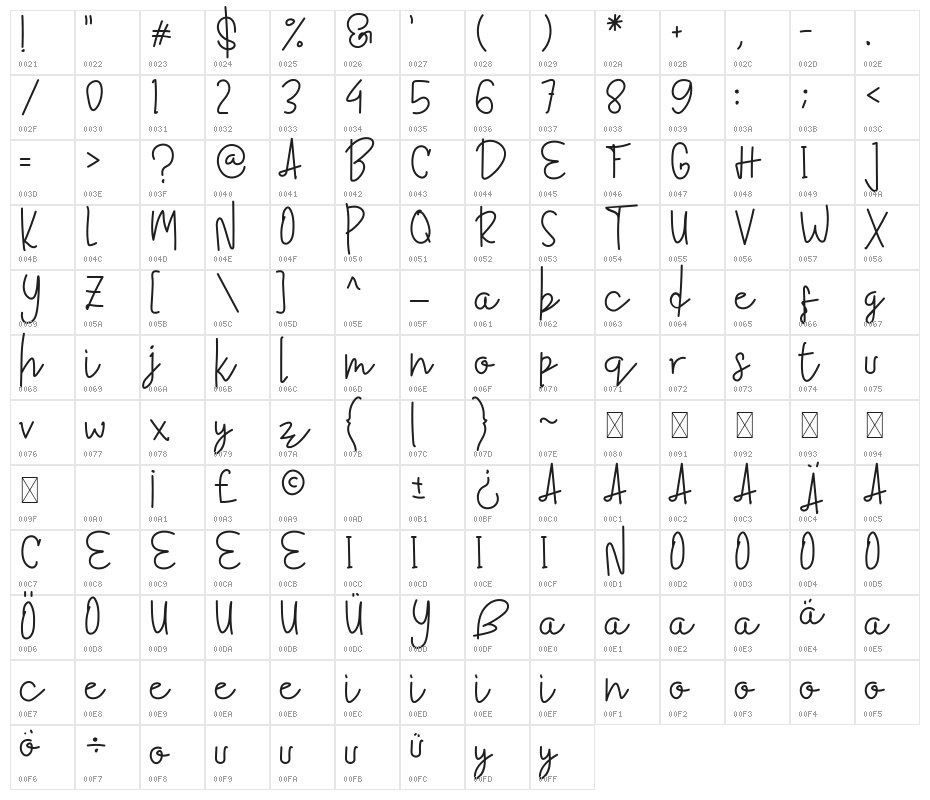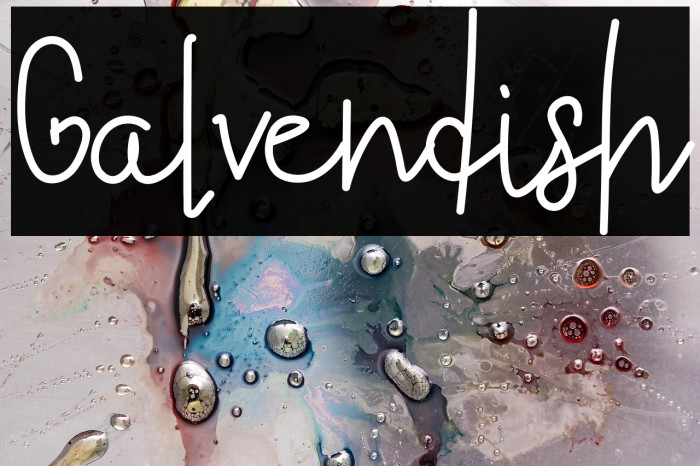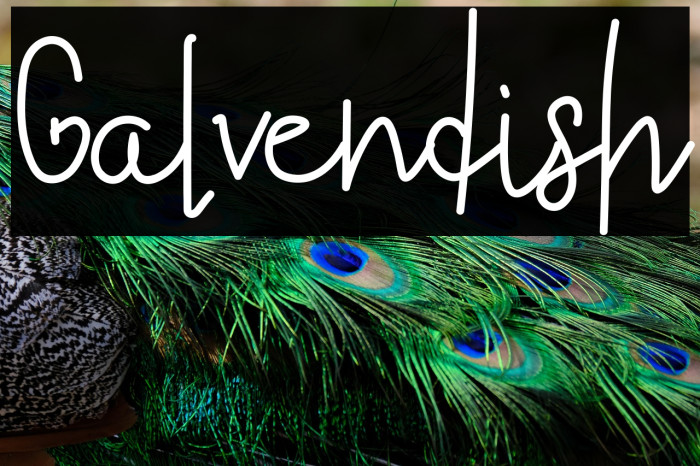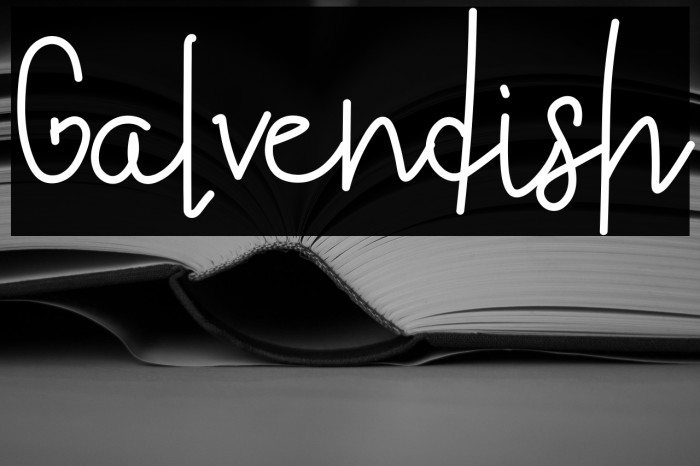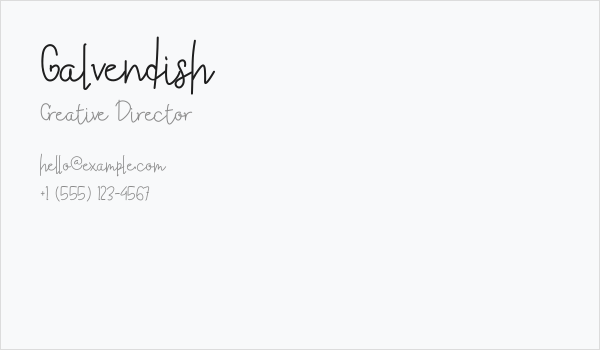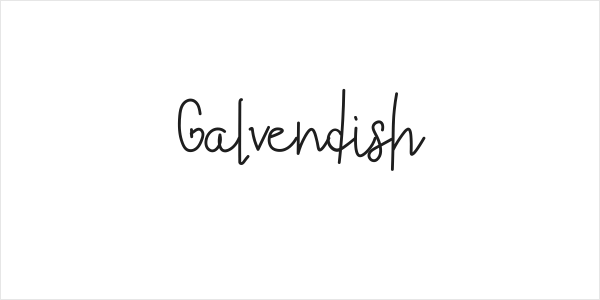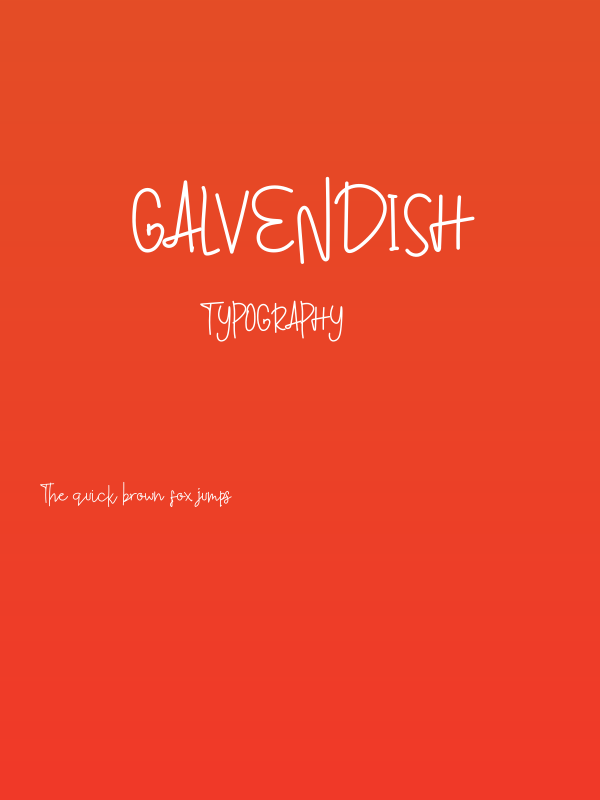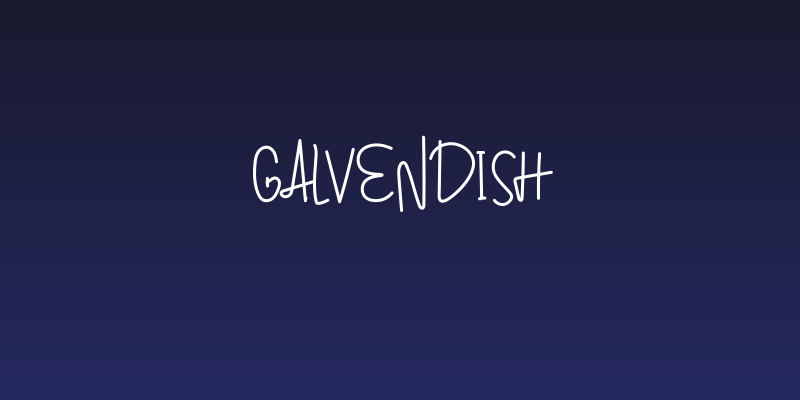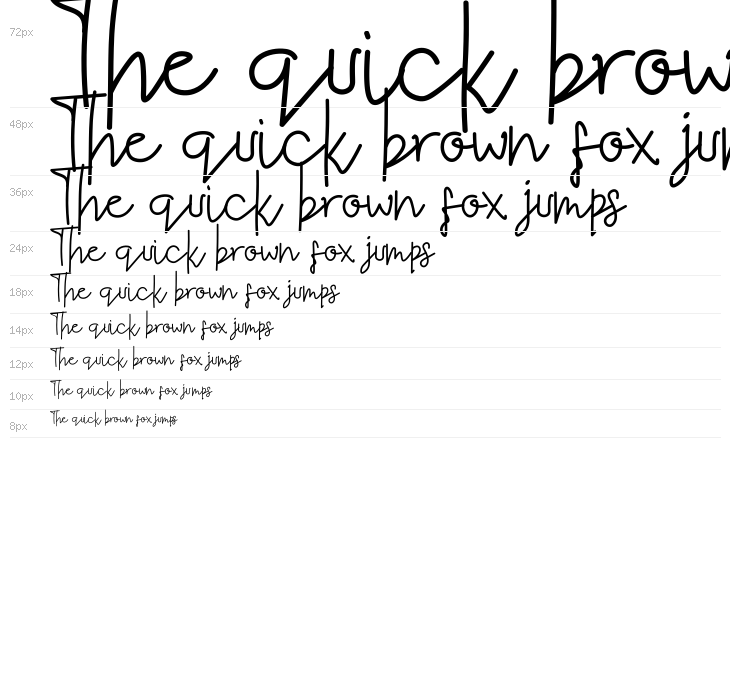
Galvendish Font
Galvendish Description
This font features a playful and casual handwritten style, characterized by its loose and flowing strokes. The letters are tall and narrow, with a slight slant that adds to the informal and relaxed feel. The uppercase and lowercase letters are well-balanced, maintaining a consistent rhythm throughout. The numbers and special characters are crafted with the same whimsical touch, making them blend seamlessly with the alphabet. This font exudes a friendly and approachable vibe, perfect for projects that aim to convey warmth and personality.
Overall StyleCasual
Use CaseLogos, Headlines, Informal Text
Proposed ProjectsIdeal for greeting cards, personal invitations, casual branding, and social media graphics.